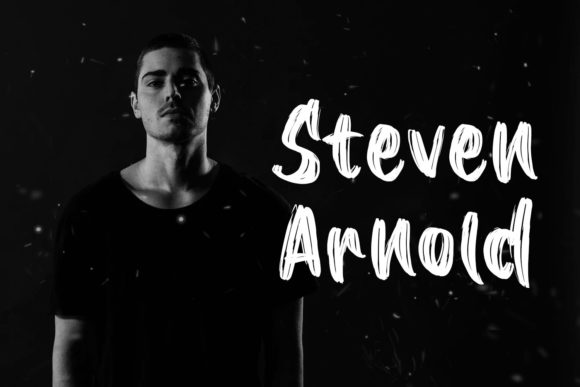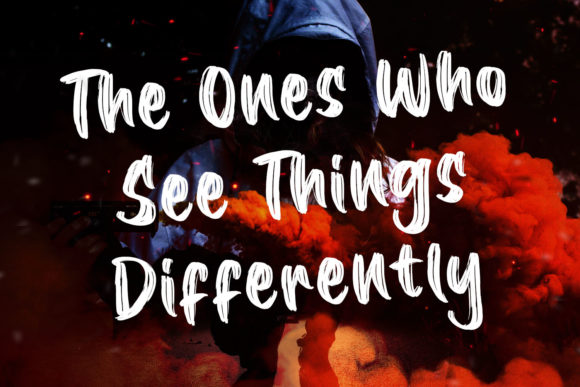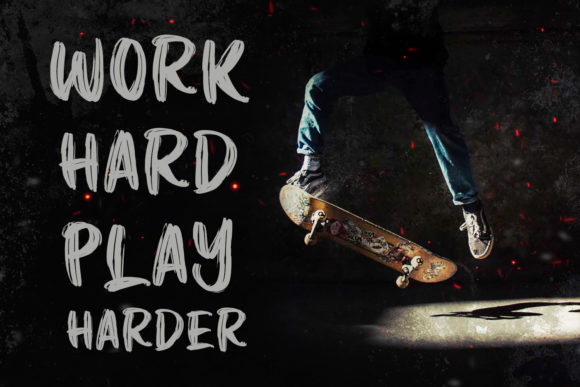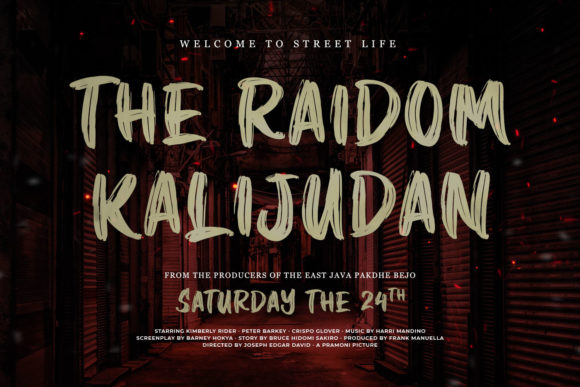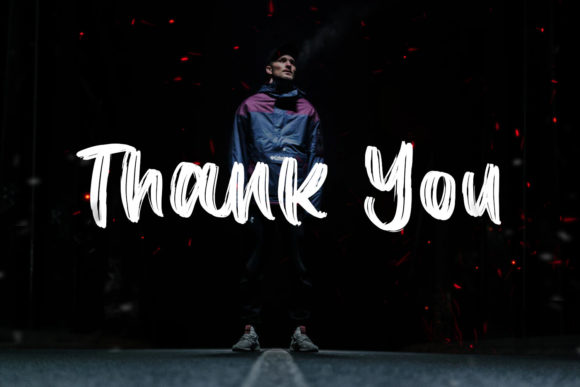
Introduction to Gosber Brush Font
Have you ever found yourself in a creative flow, with a great idea brewing in your mind, but struggling to bring it to life due to the perfect design element? That’s where the Gosber Brush Font comes in – a game-changing, high-quality design resource that can elevate your creative project from ordinary to extraordinary.
With its unique, hand-drawn style and transparent background, the Gosber Brush Font is the perfect fit for all of your logos, branding, and social media needs. Whether you’re a seasoned designer or just starting out, this font is a valuable addition to your design arsenal, offering a level of creativity and flexibility that’s hard to find with more generic fonts.
Key Features of Gosber Brush Font
- Unique brush-style design with subtle texture and imperfections
- Perfect for designers and artists seeking a distinctive, hand-drawn look
Honest Review: Gosber Brush Font
As a designer, I’m always on the lookout for high-quality design resources that can elevate my creative projects. Recently, I stumbled upon the Gosber Brush Font, and I’m excited to share my honest review with you.
- Unique and creative style: The Gosber Brush Font has a distinct, hand-drawn feel that adds a personal touch to any design project.
- Limited character set: While the font is beautiful, the character set is limited, which may not be suitable for all design projects.
- No bold or italic versions: Unfortunately, the font does not come with bold or italic versions, which can be a limitation for certain design applications.
Overall, I’m impressed with the Gosber Brush Font, and I think it’s a great addition to any designer’s toolkit. While it may have some limitations, its unique style and high-quality download make it a valuable resource for creative projects.
Tips for Getting the Most Out of Gosber Brush Font
To get the most out of the Gosber Brush Font, use it in conjunction with other design elements, such as graphics and images, to create a visually appealing design. Experiment with different font sizes, colors, and alignments to achieve a unique look. Additionally, use the font on a transparent background or a light-colored background to make the brush strokes stand out.
Common Use Cases for Gosber Brush Font
The Gosber Brush Font is ideal for use in creative projects, such as invitations, posters, and social media graphics. It is also a great resource for designers looking for a unique and high-quality font to add to their design arsenal. With its free download option, it is accessible to designers of all skill levels and experience.